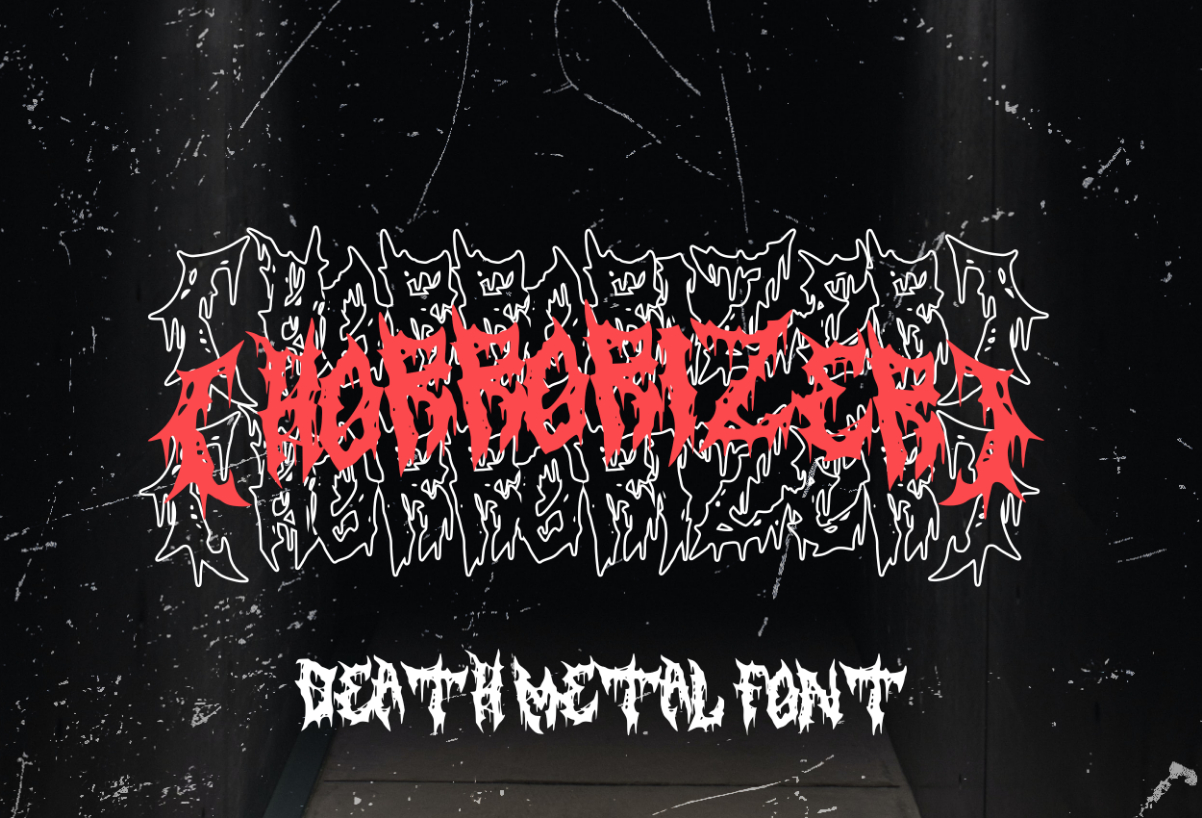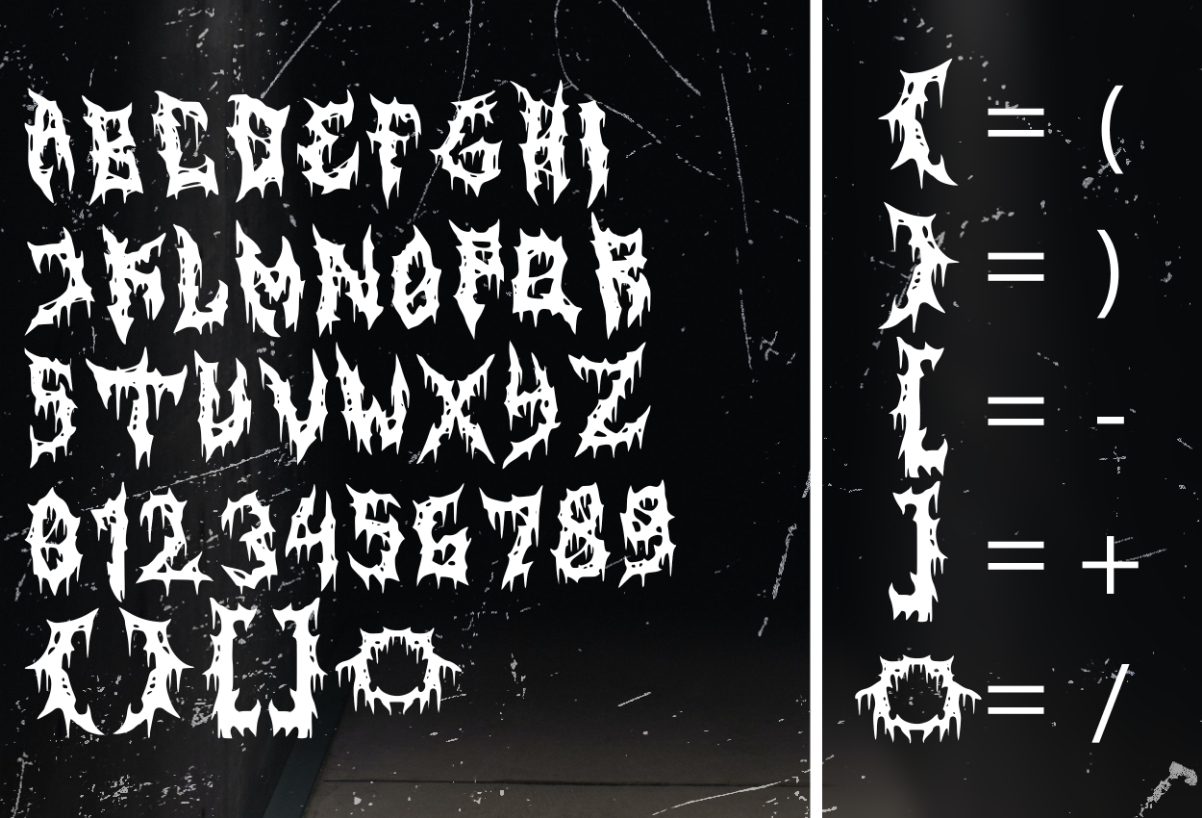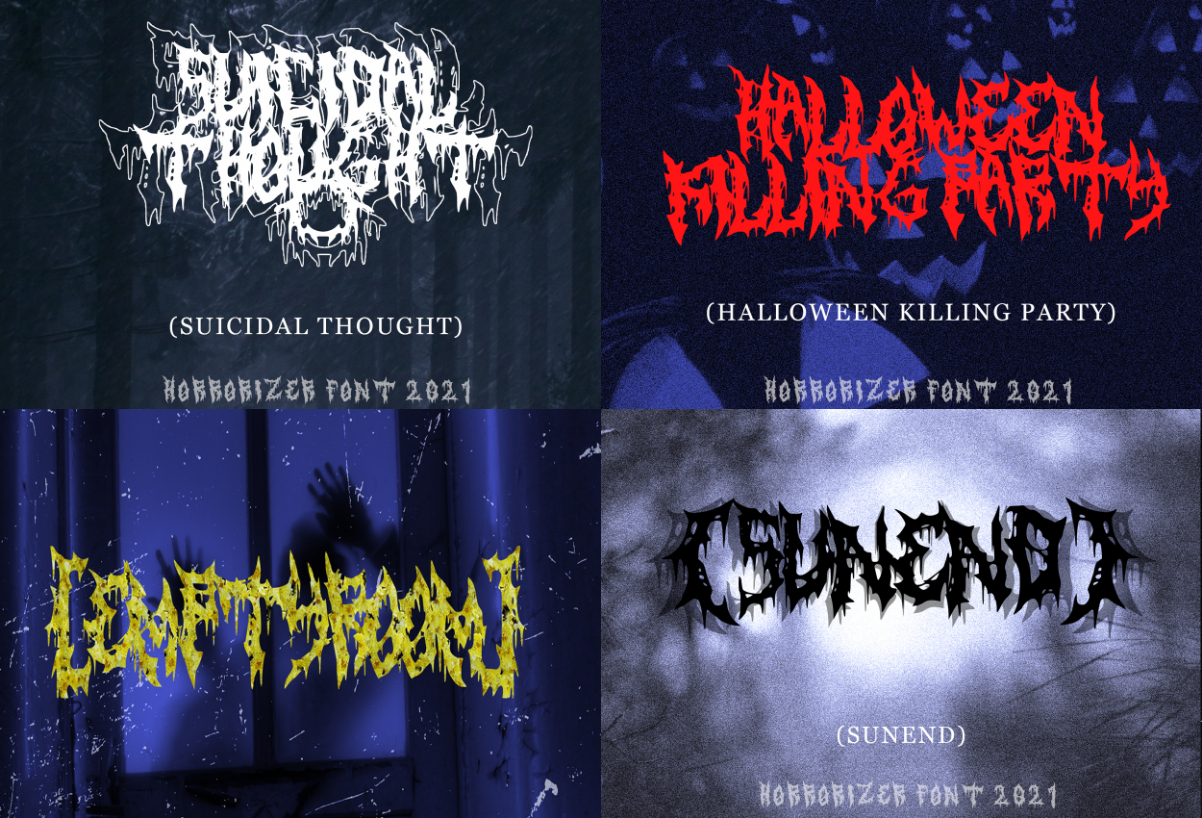
Horrorizer Font
About Horrorizer Font
Introducing Horrorizer, a death metal font inspired by underground metal band, this font has a horror vibes and suitable for your band or your brand. You can make anything you want with this font especially if you want to make something brutal and suitable for halloween or another horror event.